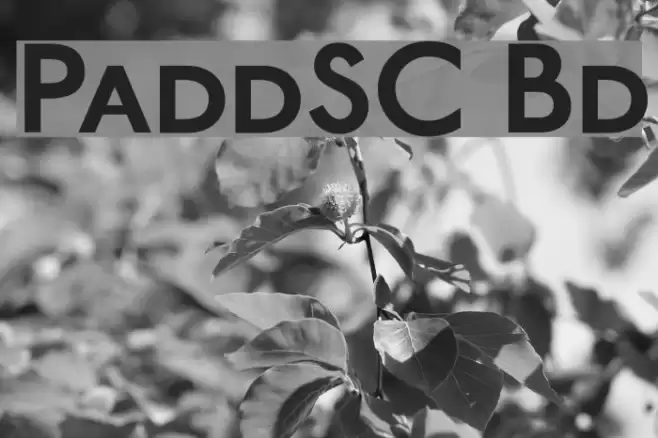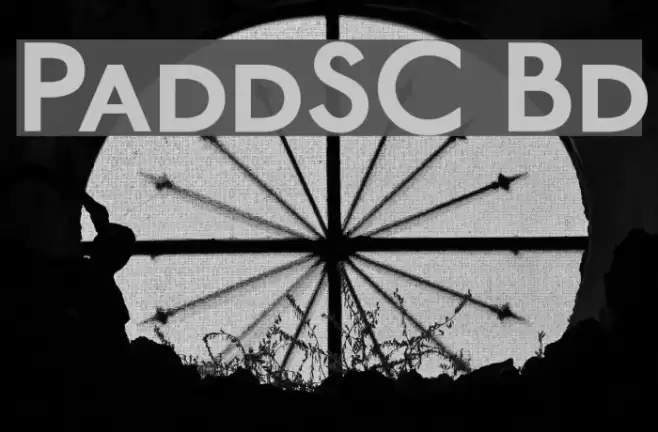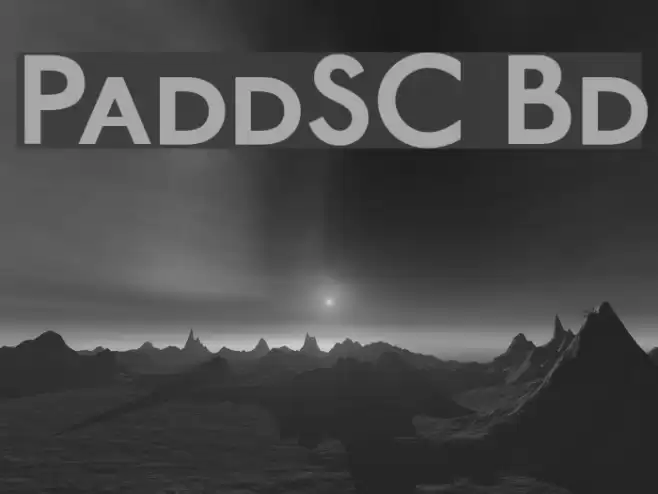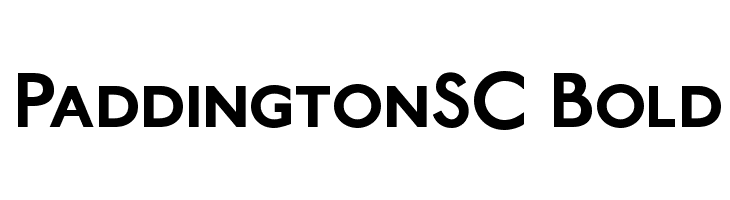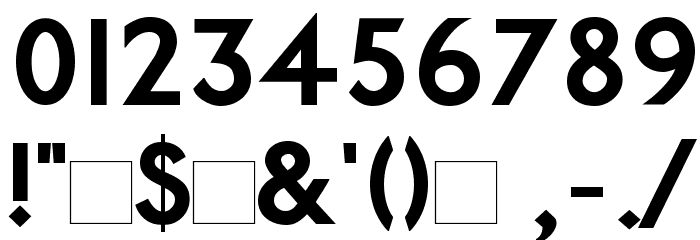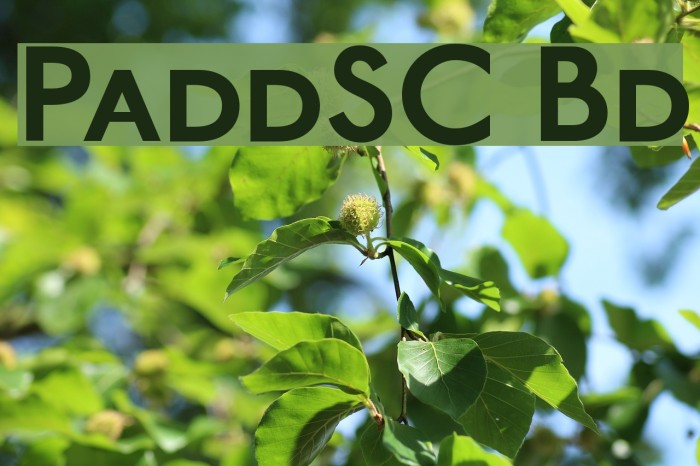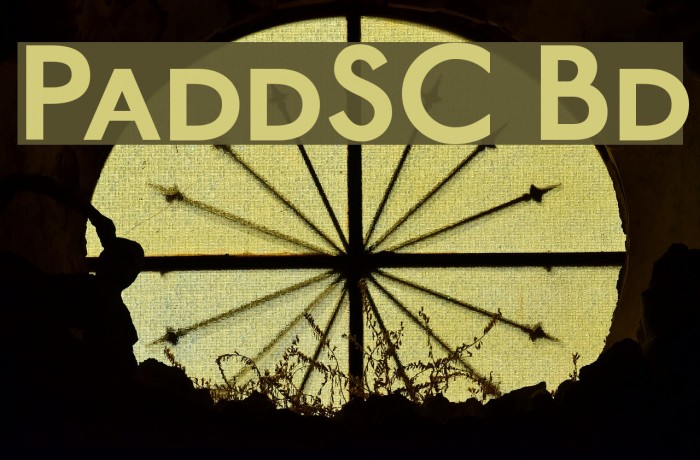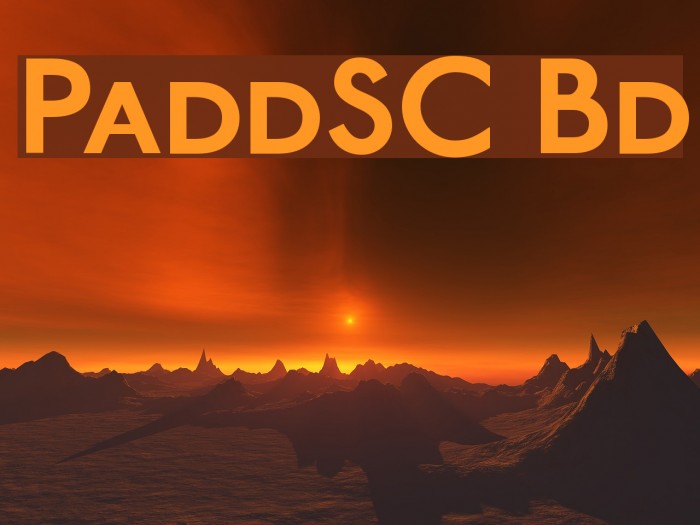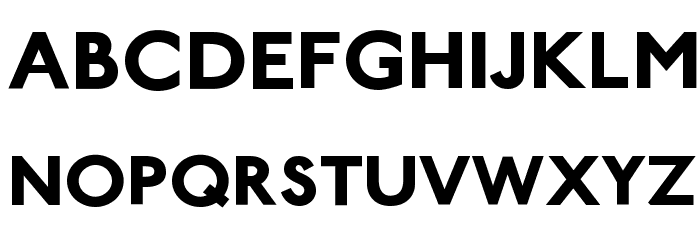
PaddingtonSC Bold Font
PaddingtonSC Bold Description
This font features a bold and assertive style with clean, geometric lines and a modern aesthetic. The characters are well-defined with consistent stroke widths, giving it a strong and impactful presence. The uppercase letters are particularly striking, with a uniform height and width that create a harmonious appearance. The numerals are equally bold, ensuring readability and clarity. The special characters are designed to match the overall style, maintaining the font's cohesive look. This font is ideal for making a statement in any design project.
A bold, modern font with clean, geometric lines and strong presence from Formal fonts.